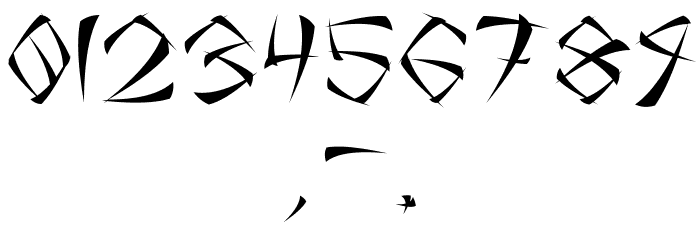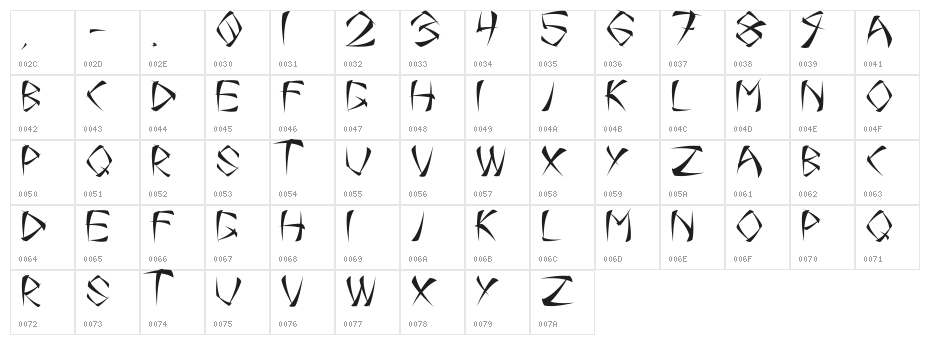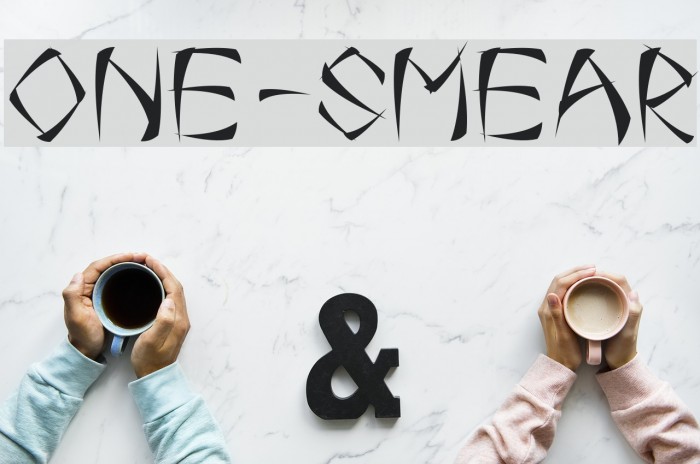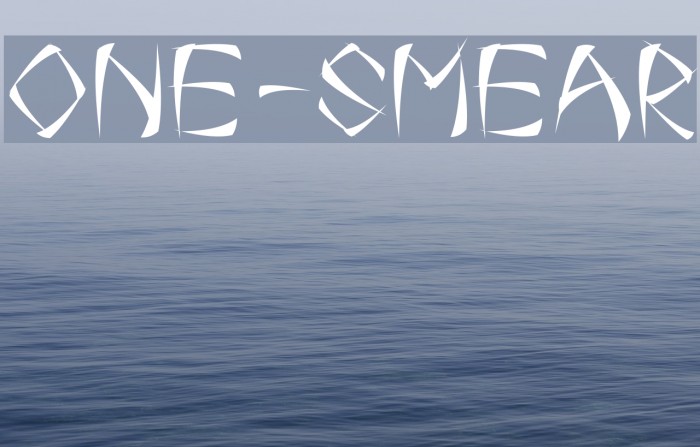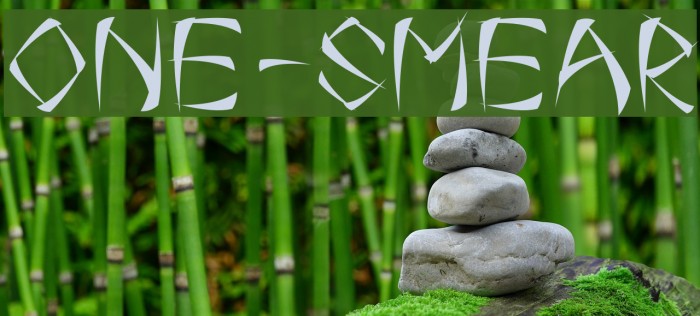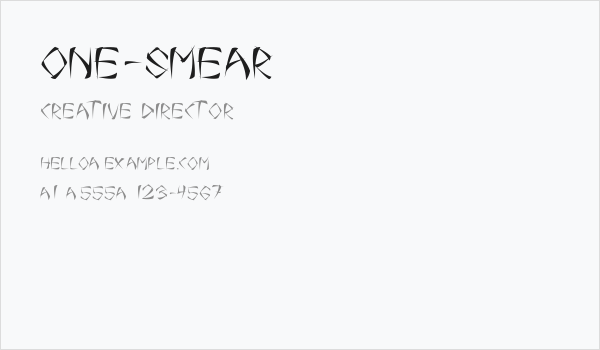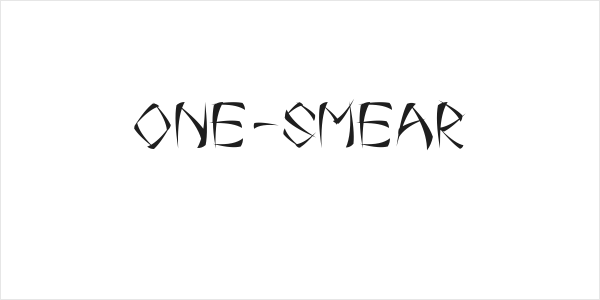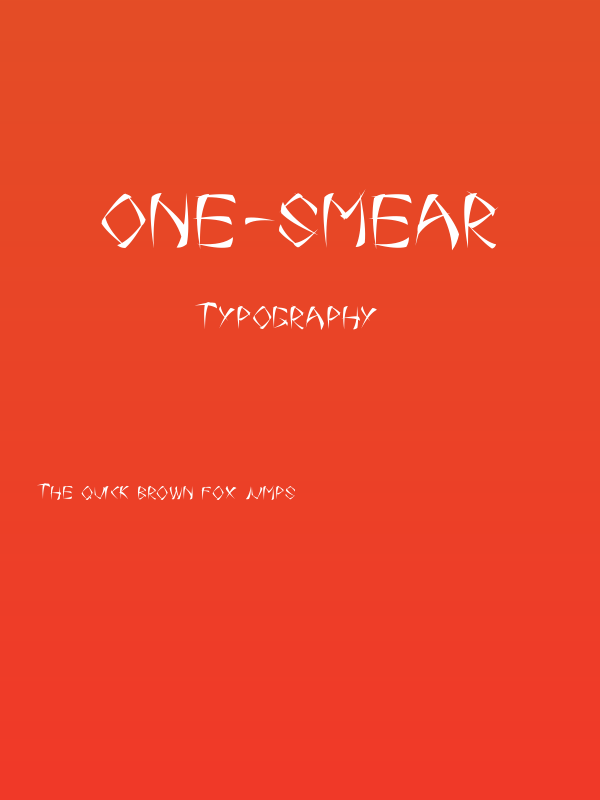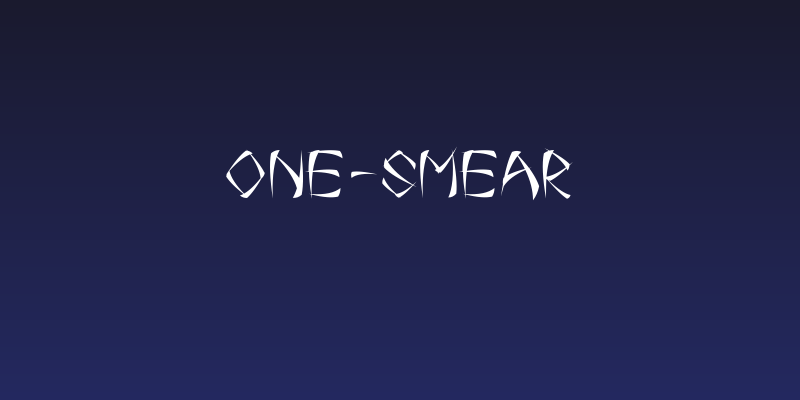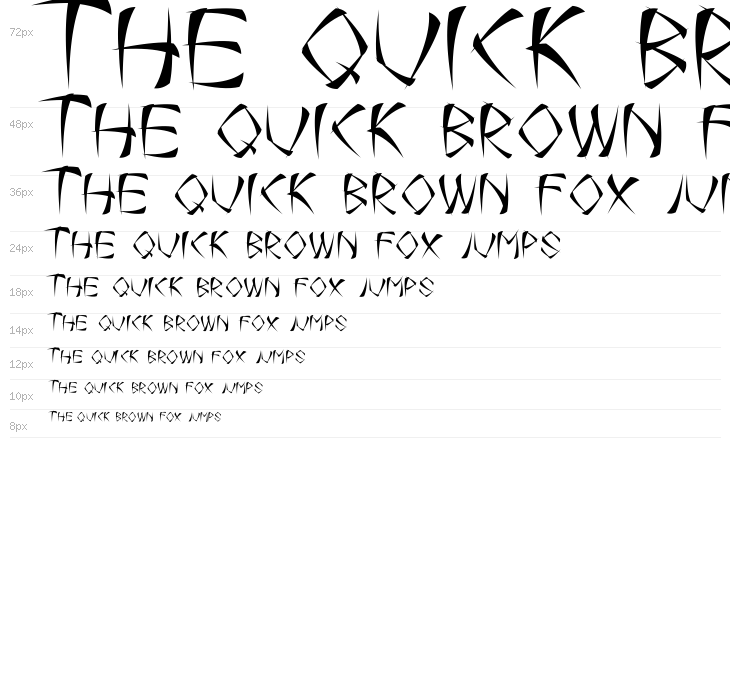
One-Smear Font
One-Smear Description
This font features a dynamic and edgy style, characterized by sharp, angular strokes and a sense of movement. The letters are designed with a brush-like effect, giving them a hand-drawn appearance that is both artistic and bold. The uppercase and lowercase letters maintain a consistent style, with exaggerated angles and pointed ends that create a sense of urgency and energy. The numbers and special characters follow the same design principles, ensuring a cohesive look across all elements. This font is perfect for projects that require a strong visual impact and a modern, unconventional aesthetic.
| Proposed Projects | Ideal for album covers, posters, graffiti art, and branding that seeks a bold, modern edge. |